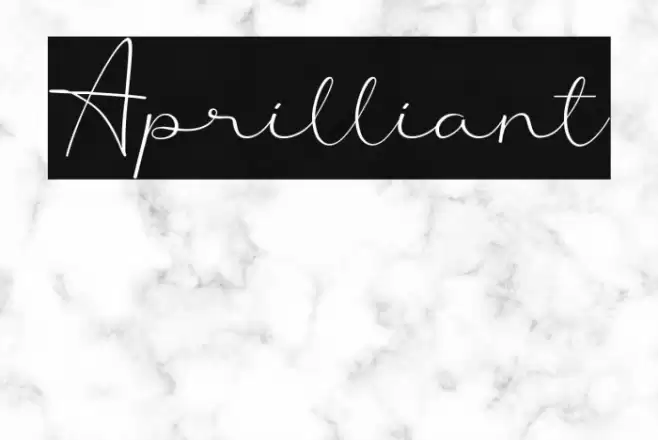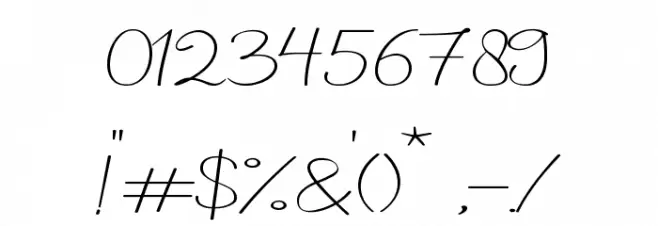
Aprilliant Font
Aprilliant Description
This font features an elegant and flowing script style, characterized by its smooth, cursive lines and graceful curves. The uppercase letters are tall and slightly narrow, with a consistent slant that adds a sense of motion and fluidity. Lowercase letters are more rounded and connected, enhancing the handwritten feel. The numerals maintain the same fluidity, with a slight variation in height that adds visual interest. Special characters are seamlessly integrated, maintaining the overall aesthetic. This font exudes sophistication and charm, making it ideal for projects that require a personal touch.
An elegant, flowing script font with smooth, cursive lines and graceful curves from Uncategorized fonts.
- Proposed Projects: Ideal for wedding invitations, greeting cards, personal branding, and elegant packaging designs.
- Overall Style: Elegant, Handwritten
- Use Case: Logos, Invitations, Personal Branding